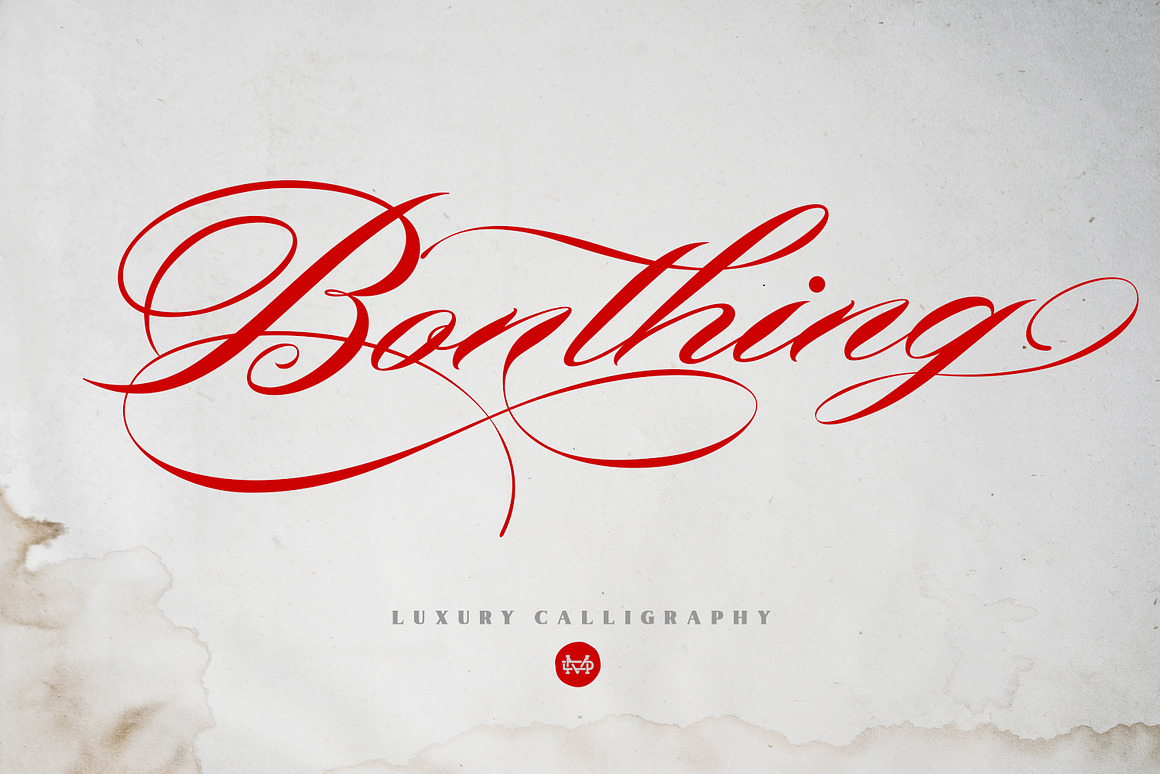
Bonthing Calligraphy Font
Bonthing Calligraphy Font is perfect for elegant wedding invitations, luxury brand calligraphy, handwritten greeting cards, premium cosmetics packaging, sophisticated stationery design, and romantic event communications. This graceful typeface works exceptionally well in boutique hotel branding, high-end jewelry catalogs, and refined lifestyle brand identity systems.
What makes Bonthing Calligraphy Font so exciting is its exquisite hand-lettered elegance that embodies the timeless art of traditional calligraphy with contemporary sophistication. The font features flowing, organic letterforms with natural brush strokes and graceful flourishes that create authentic handwritten beauty. Its artistic character demonstrates exceptional craftsmanship and personal touch, making it ideal for brands seeking to convey luxury, intimacy, and artisanal quality.
Bonthing Calligraphy Font comes in multiple style variations including Regular, Bold, and Ornamental versions. The font family also includes decorative swashes, elegant ligatures, and calligraphic flourishes that enhance the handwritten quality and provide extensive creative possibilities for sophisticated design applications.
The font's organic construction ensures natural flow and readability while preserving its distinctive calligraphic character across various luxury applications. Professional designers appreciate its comprehensive OpenType features, including contextual alternates, stylistic sets, and advanced ligature systems that enhance authentic calligraphic expression.
Bonthing Calligraphy Font has become increasingly popular among creative professionals working with luxury and wedding brands. Its ability to convey handcrafted elegance and personal artistry makes it an invaluable asset for organizations seeking to establish intimate, sophisticated connections with discerning audiences through beautiful calligraphy.